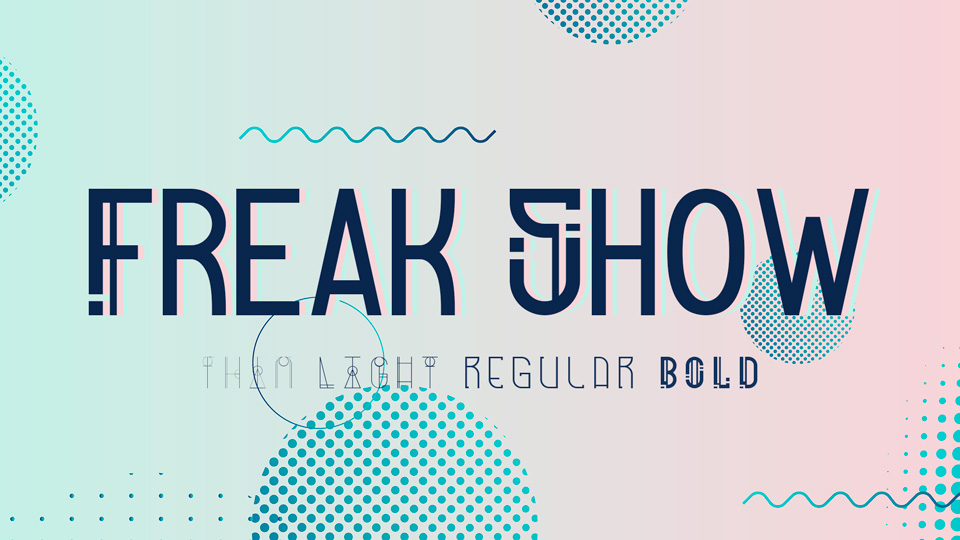
Download Freak Show font, a creative display typeface in 4 weights inspired by geometric shapes. Freak Show font is perfect for posters, branding, futuristic designs and other artworks.
Designer: Dmitry Fisher